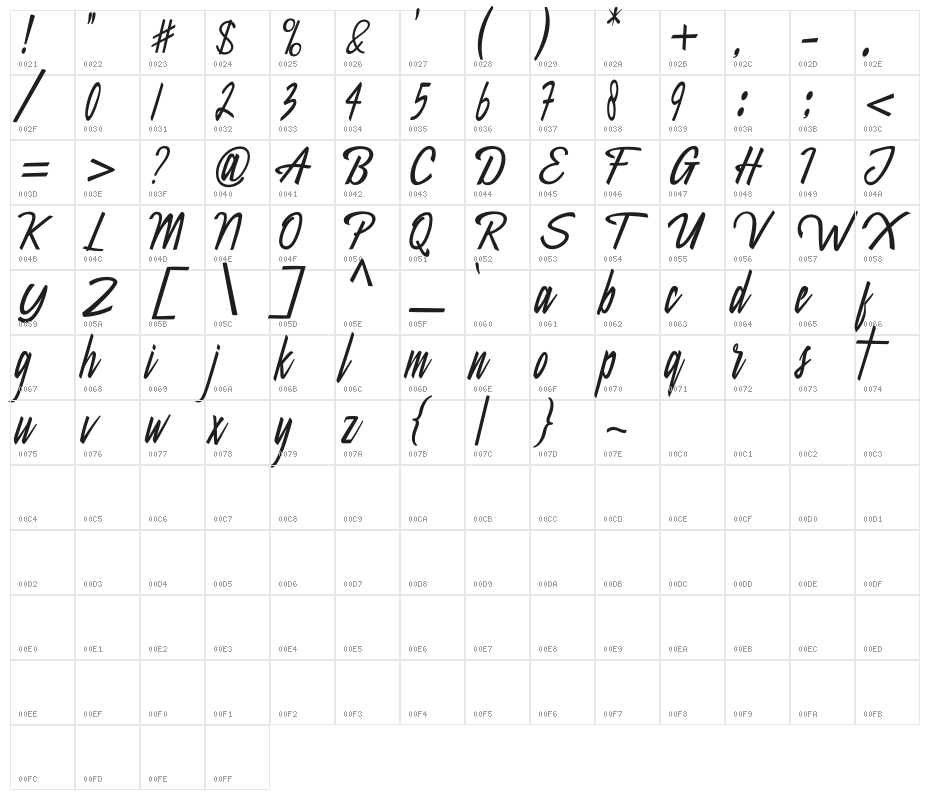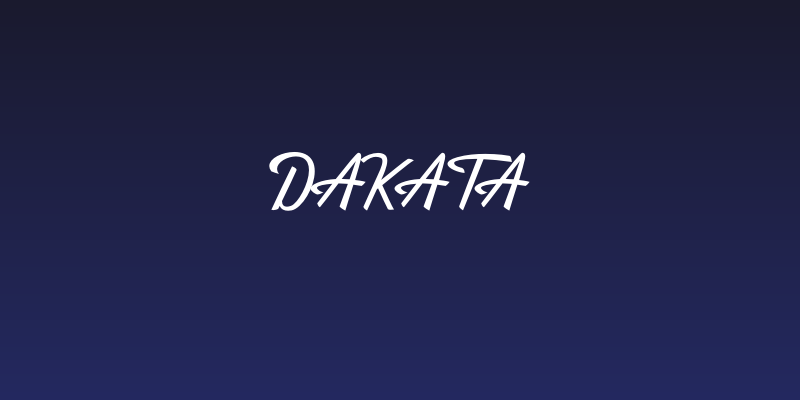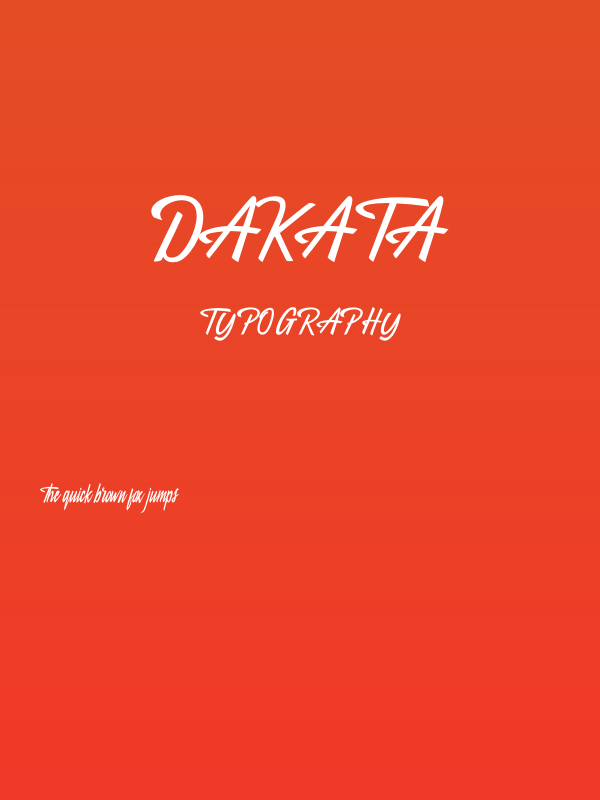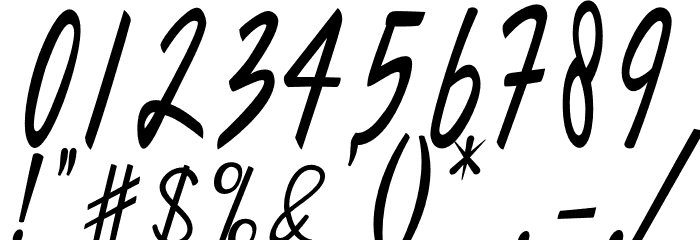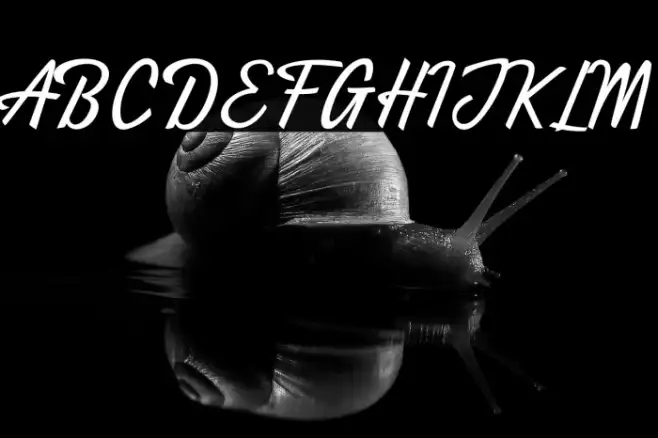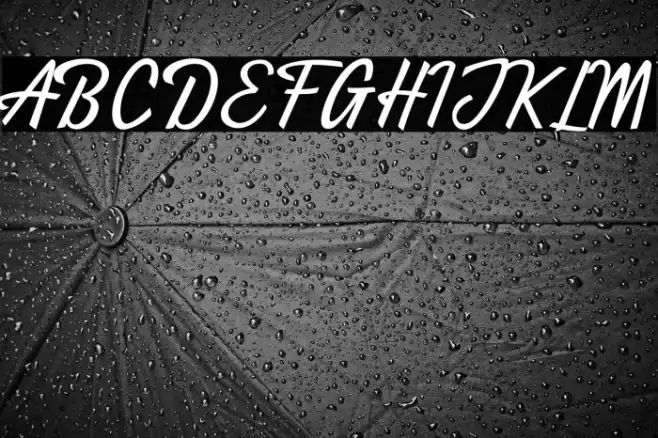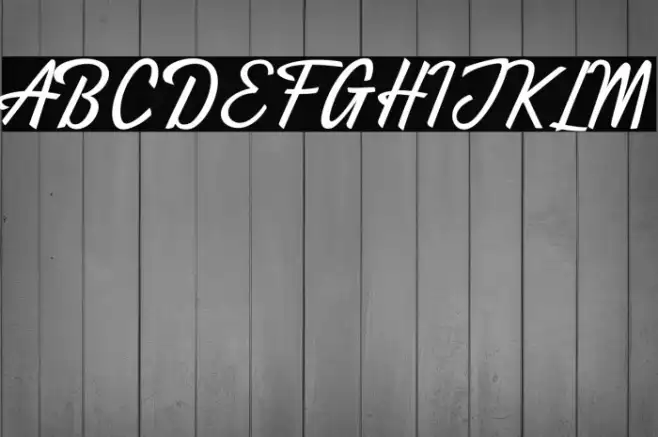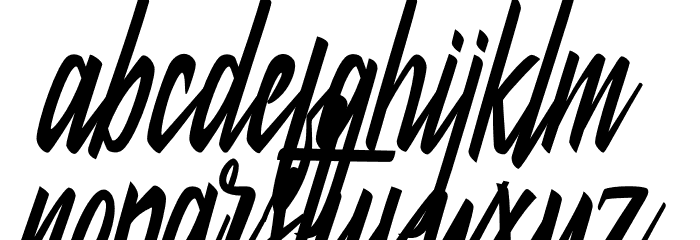
Dakata Font
Dakata Description
This font features a dynamic and fluid script style, characterized by its elegant and flowing letterforms. The uppercase letters exhibit a graceful slant, while the lowercase letters maintain a consistent rhythm, enhancing readability. The numerals are designed with a similar slant, ensuring uniformity across the typeface. Special characters are integrated seamlessly, maintaining the overall aesthetic. The strokes are smooth and continuous, giving the font a cohesive and polished appearance. This typeface exudes a sense of sophistication and creativity, making it suitable for a variety of design applications.
| Proposed Projects | Ideal for wedding invitations, branding projects, and elegant stationery design. |